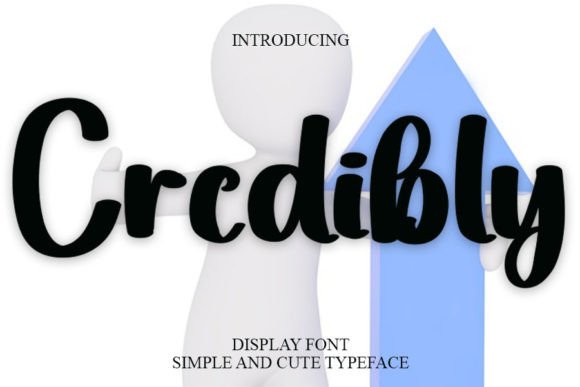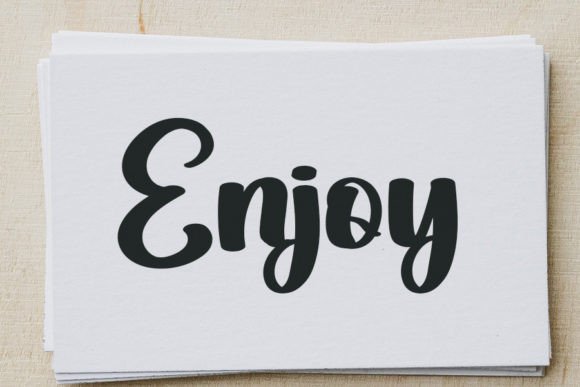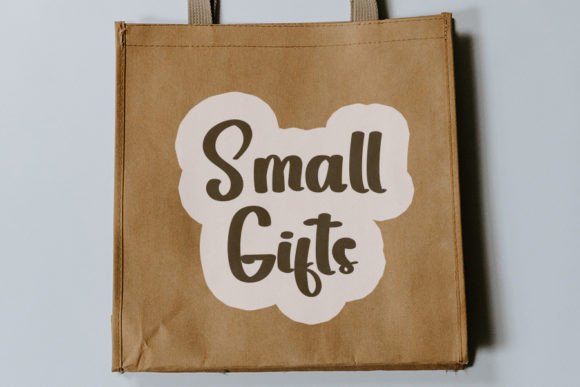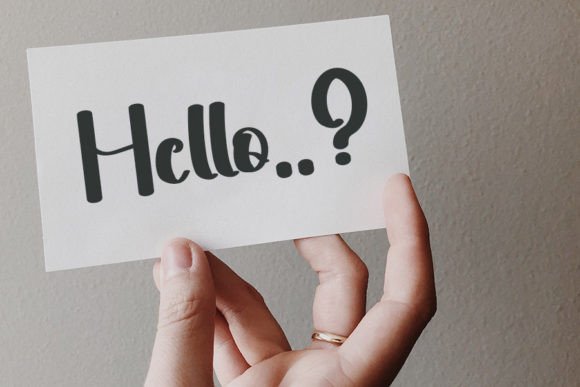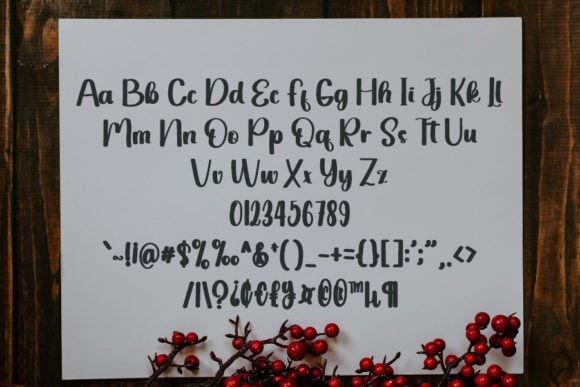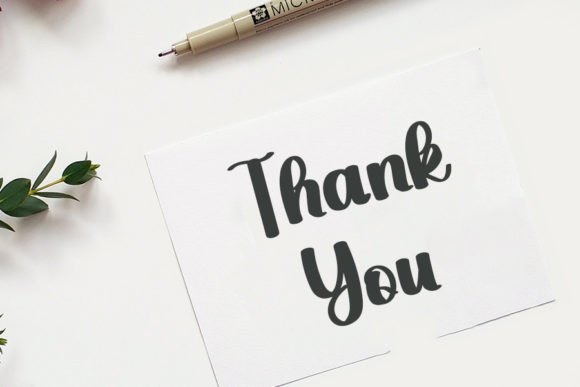
Credibly Font
About Credibly Font
The Credibly font is a clean, modern handwritten typeface inspired by the beauty of classic calligraphy. With balanced strokes and smooth curves, it offers a versatile style that feels both timeless and contemporary. This font brings a polished look to any creative project while maintaining a natural and welcoming tone.
A Clean and Balanced Design
One of Credibly’s standout features is its perfect balance between thickness and delicacy. The strokes are neither too thin nor too heavy. This makes the font ideal for everything from minimalist branding to expressive headlines. The letterforms flow naturally, giving your designs a handcrafted look that remains legible and professional.
The structure is spotless, offering uniform spacing and proportions across all characters. Whether used in uppercase or lowercase, Credibly keeps your typography neat and readable.
Inspired by Classic Calligraphy
Although it leans modern, Credibly’s core influence is classic calligraphy. Each letter is drawn with care, preserving the rhythm and elegance of hand-lettered scripts. This blend of old and new gives the font a unique character. It’s stylish but approachable, making it suitable for lifestyle branding, personal blogs, packaging, or greeting cards.
With just the right amount of flair, it adds personality without overpowering your message.
Perfect for Versatile Projects
From wedding invitations to social media graphics, the Credibly font adapts to a wide range of uses. It’s a great choice for designers who want a font that feels human, polished, and easy to apply across various platforms.